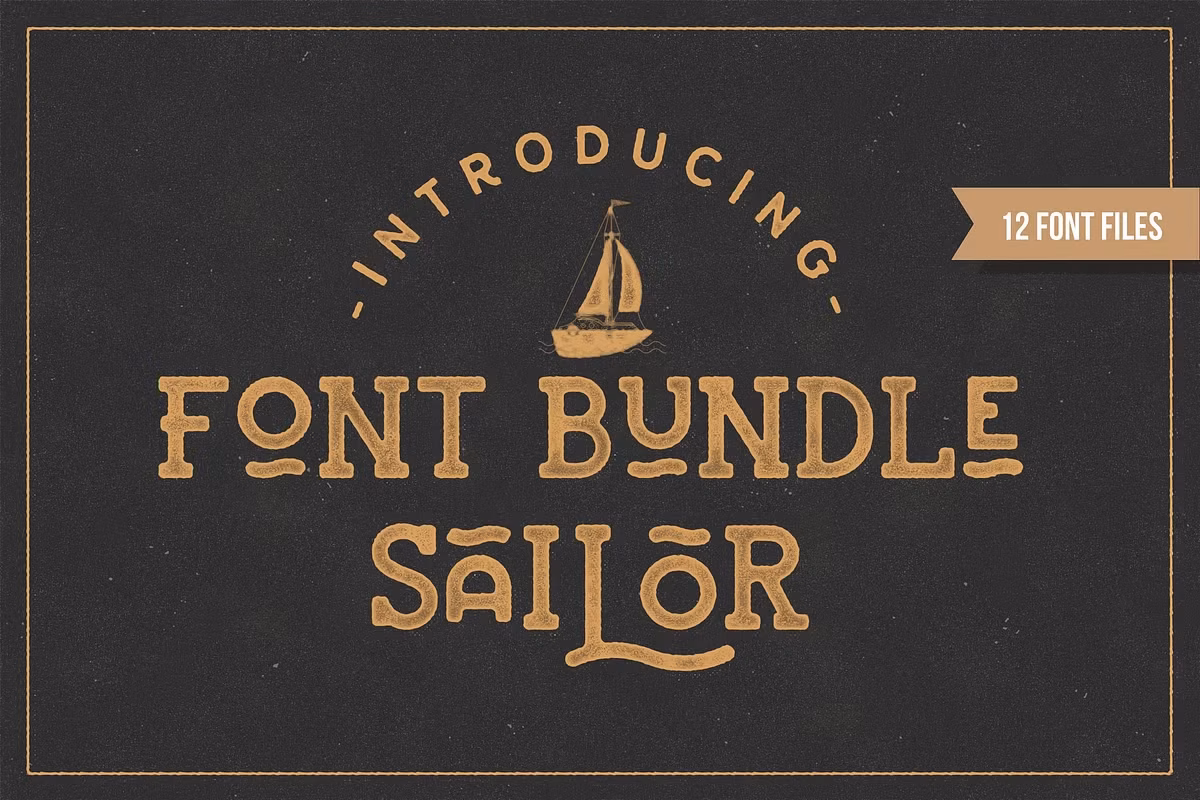
Sailor Font Bundle Free Download
The Sailor Font Bundle Free Download is a versatile and stylish collection perfect for nautical-themed designs, vintage logos, apparel branding, and bold headlines. With its handcrafted aesthetic and strong personality, this font bundle brings a unique maritime charm to any creative project. Whether you’re designing packaging for a seaside café or crafting a logo for a tattoo studio, Sailor Font Bundle provides you with a wide range of options and weights to match your vision.
Designed with both creativity and functionality in mind, the fonts in this bundle maintain excellent readability while delivering a bold visual punch. Ideal for designers, marketers, and small business owners, the Sailor Font Bundle can elevate your branding game without breaking the bank. This font set includes alternates, stylistic features, and multilingual support to give your projects a professional finish.